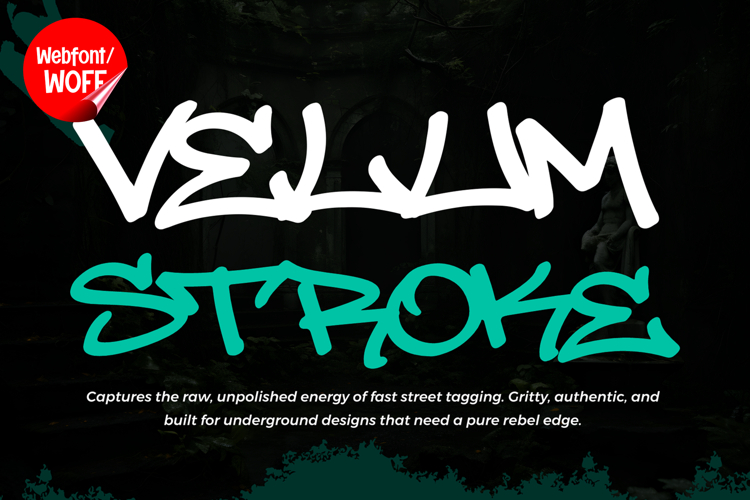
Velum Stroke | Monoline Handwritten Graffiti Tag Webfont
Velum Stroke is a monoline handwritten graffiti tag webfont designed to capture the raw, spontaneous energy of street tagging in a clean and modern digital format. With its smooth single-line strokes and natural hand-drawn flow, this font delivers an authentic graffiti signature style while maintaining clarity and balance for web use.
Velum Stroke includes a complete set of uppercase characters, created with a continuous monoline structure. The strokes are fluid and even, giving each letter a natural handwritten rhythm. These forms work well for headlines, logo-style text, banners, and highlighted sections where a graffiti tag look is needed. The style feels energetic and organic while still maintaining visual balance.
The font also includes numbers and punctuation, making it flexible for different types of website content. It can be used for short phrases, promotional text, navigation accents, and interface highlights. Every character follows the same monoline concept, ensuring a consistent appearance across the entire design.
With multilingual support, Velum Stroke offers a wide range of accented characters, allowing content to be displayed clearly across different languages. This makes it suitable for international projects that require consistent typography across diverse audiences.
The monoline graffiti tag style makes Velum Stroke ideal for urban-themed websites, streetwear brands, music platforms, creative portfolios, and lifestyle-focused designs. Its clean stroke structure provides a modern touch, while the handwritten flow keeps the visual style expressive and dynamic. This balance allows it to stand out without overwhelming the layout.
Despite its artistic direction, Velum Stroke is designed with readability in mind. The spacing and stroke consistency help maintain clarity, especially in short text applications. This makes it effective for display text as well as supporting elements within web interfaces.
Velum Stroke is a webfont that blends handwritten graffiti aesthetics with modern digital clarity. Its smooth lines, consistent strokes, and expressive style create a distinctive look that works well across a variety of web design projects. For designs that need a clean graffiti tag feel with strong visual identity, Velum Stroke delivers a balanced and impactful typographic solution.